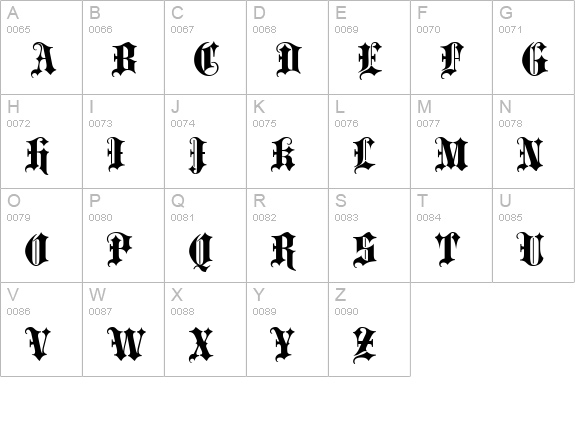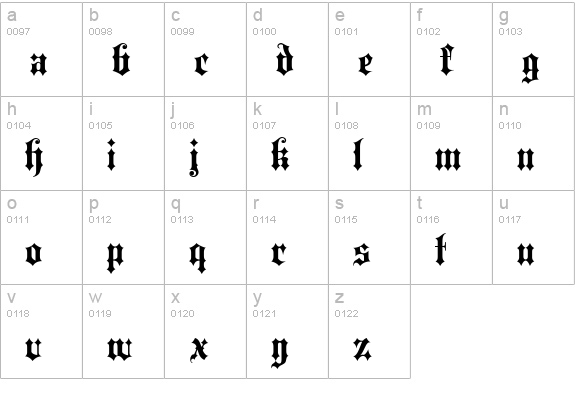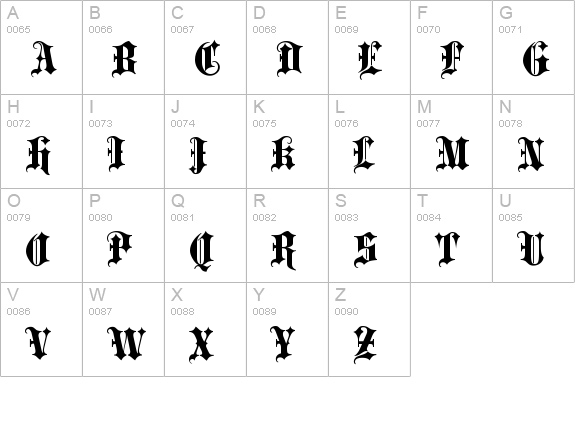
Blackletter ExtraBold is an extra-heavy, attention-grabbing variant in the Blackletter typeface family \xE2\x80\x94 well suited to high-impact headlines, posters, and bold branding.
Introducing Blackletter ExtraBold, a captivating font that embodies strength and elegance. Its bold and assertive strokes make a powerful statement, while its intricate details exude a timeless charm. With its distinct and unmistakable old-world appeal, Blackletter ExtraBold effortlessly adds a touch of sophistication to any design project. This font is not only visually arresting but also versatile, making it suitable for a wide range of creative applications. From branding and logo design to packaging and headlines, Blackletter ExtraBold commands attention and leaves a lasting impression. Its confident and authoritative presence is perfect for conveying a sense of tradition and reliability. And the best part? Blackletter ExtraBold is free and easily accessible for download at FontsMarket.com. This means that designers, creatives, and enthusiasts alike can effortlessly add this exceptional font to their repertoire without breaking the bank. By providing this font free of charge, FontsMarket.com has made it accessible to everyone, ensuring that creativity knows no bounds. So, whether you're designing a medieval-inspired logo, creating eye-catching posters, or simply looking to infuse your projects with a touch of vintage elegance, Blackletter ExtraBold is the perfect choice. With its free availability at FontsMarket.com, there's no reason to hold back – let your creativity soar with this remarkable font that effortlessly combines tradition and modernity.